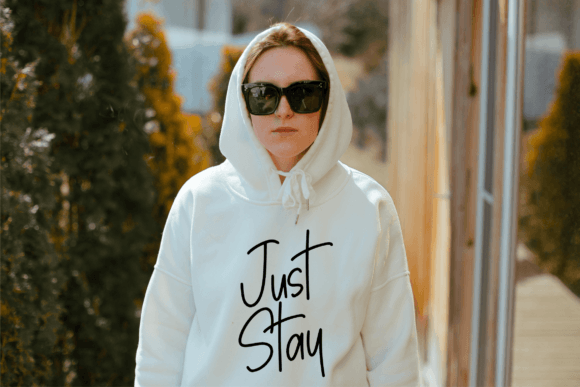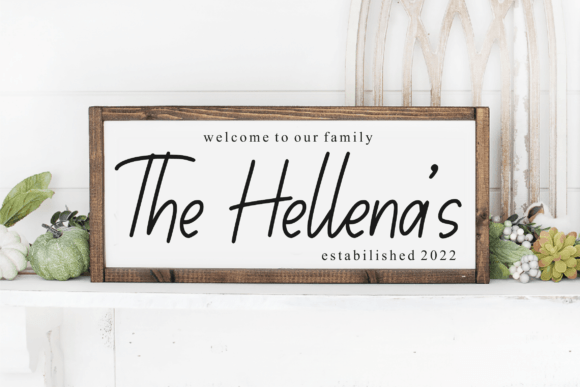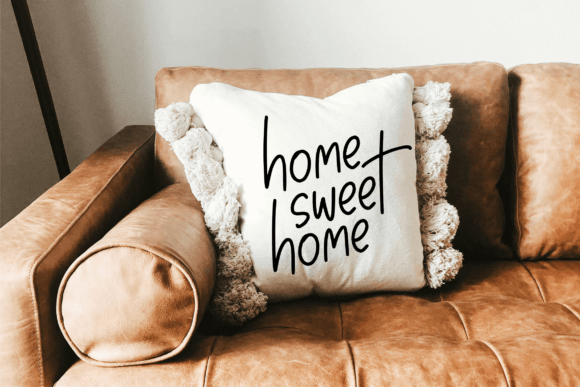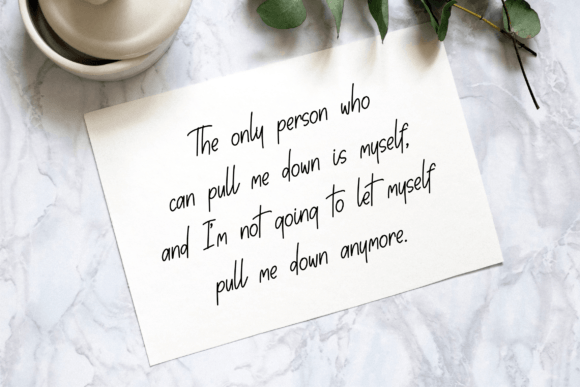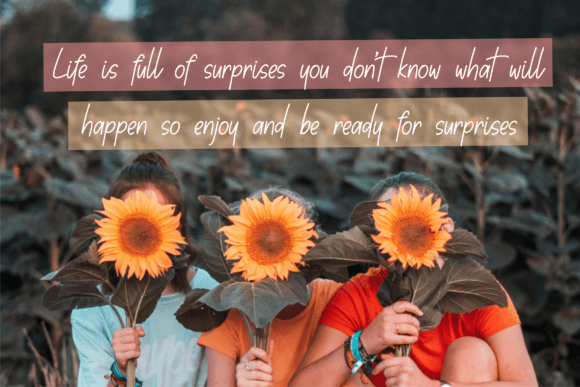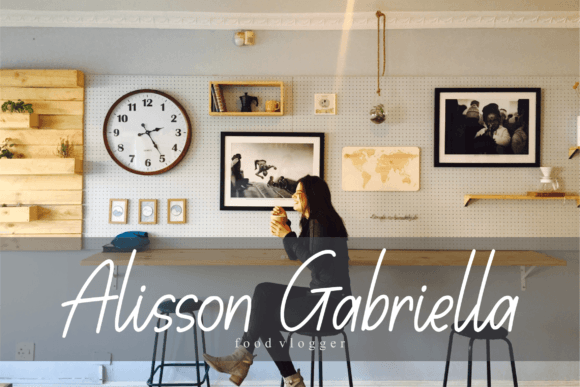
Introduction to Metallicfarms Font Font
Fonts play a crucial role in design, and the Metallicfarms Font font is a typeface that brings both character and versatility to any project. Whether you’re working on a branding project, a website, or a print design, the Metallicfarms Font font offers a unique style that can elevate your work.
Metallicfarms is a Monoline Handwritten Font Metallicfarms is perfect for product packaging, branding projects, magazines, social media, weddings, or just used to express words above the background.
Key Features of Metallicfarms Font Font
Why Choose Metallicfarms Font Font?
The Metallicfarms Font font is more than just a typeface – it’s a design tool that helps you communicate your message with style and clarity. Its unique character set and versatile design make it suitable for a wide range of applications, from elegant invitations to bold headlines.
With its carefully crafted letterforms and balanced proportions, the Metallicfarms Font font ensures readability and visual appeal across all mediums.
What makes Metallicfarms Font font special?
The Metallicfarms Font font stands out with its unique design, exceptional readability, and versatility across various design applications.